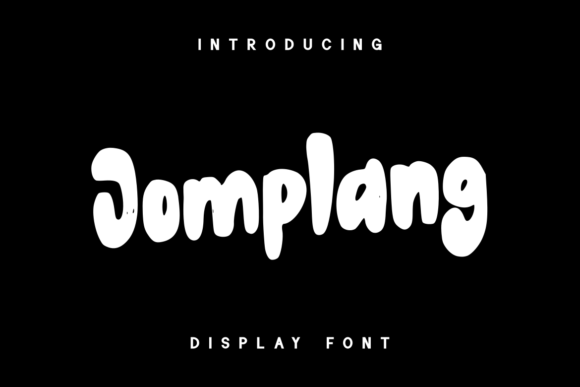
Discover Jomplang Font: A Whimsical Display Font That Ignites Creativity
Journey into the realm of imagination and unlock a world of enchantment with Jomplang Font, a captivating display font that will ignite your creative spark. Crafted with meticulous attention to detail, Jomplang Font embodies a harmonious blend of modern aesthetics and playful charm, making it an indispensable tool for designers, crafters, and anyone seeking to unleash their artistic vision.
Unleash Your Inner Artist
With Jomplang Font as your creative companion, transform ordinary into extraordinary. Let your imagination soar as you explore endless possibilities, crafting designs that exude personality and charm. Whether you're a seasoned professional or just starting your creative journey, Jomplang Font is your gateway to a world of limitless expression.
A Symphony of Styles
Jomplang Font's versatility knows no bounds, seamlessly adapting to a myriad of design projects. Its playful nature lends itself perfectly to children's books, invitations, greeting cards, and social media graphics. Elevate your branding with a touch of whimsy, or let your imagination run wild as you create captivating posters, flyers, and website designs.
A Joyous Celebration of Life's Sweet Moments
Let Jomplang Font be your creative partner as you capture life's precious moments. Whether it's a child's birthday party, a joyous anniversary, or a heartfelt celebration of love, Jomplang Font will add an unforgettable touch of magic to your designs. Your creations will radiate with an infectious energy, evoking smiles and spreading joy wherever they go.
A Legacy of Excellence
Crafted by the renowned GFRcreative, Jomplang Font is a testament to the power of creativity and innovation. Backed by a team of passionate designers, Jomplang Font embodies the essence of artistic excellence, ensuring that your designs will leave a lasting impression.
Embrace the Whimsical Charm of Jomplang Font
Join the creative revolution and embrace the whimsical charm of Jomplang Font. Let your imagination take center stage as you create designs that captivate and inspire. Say goodbye to ordinary fonts and embark on a journey of endless creativity with Jomplang Font.